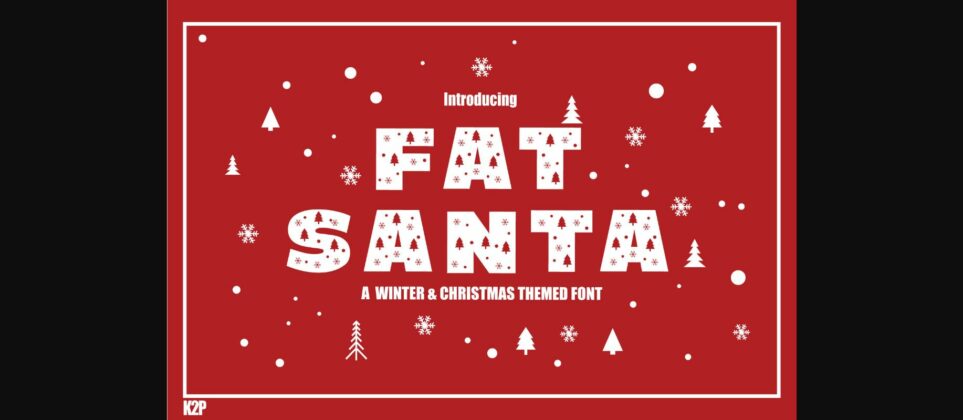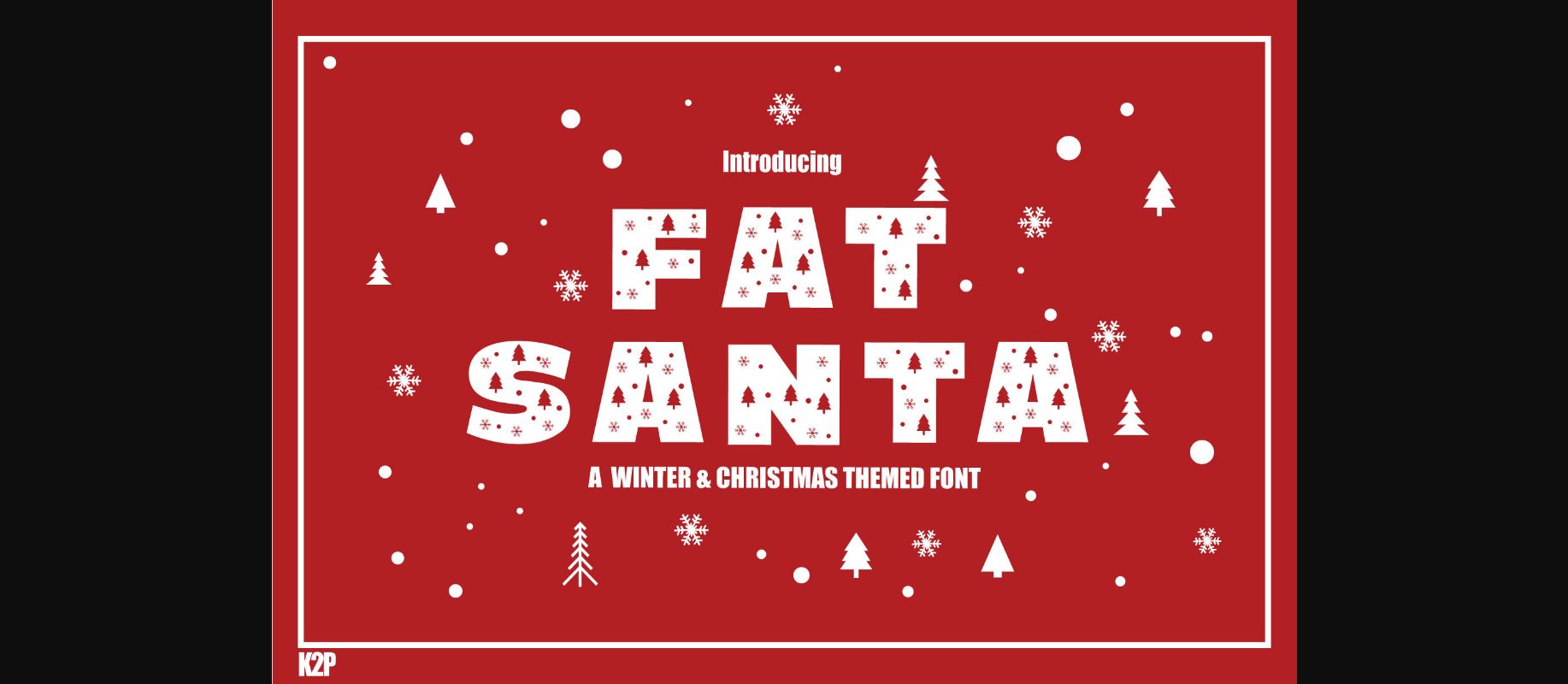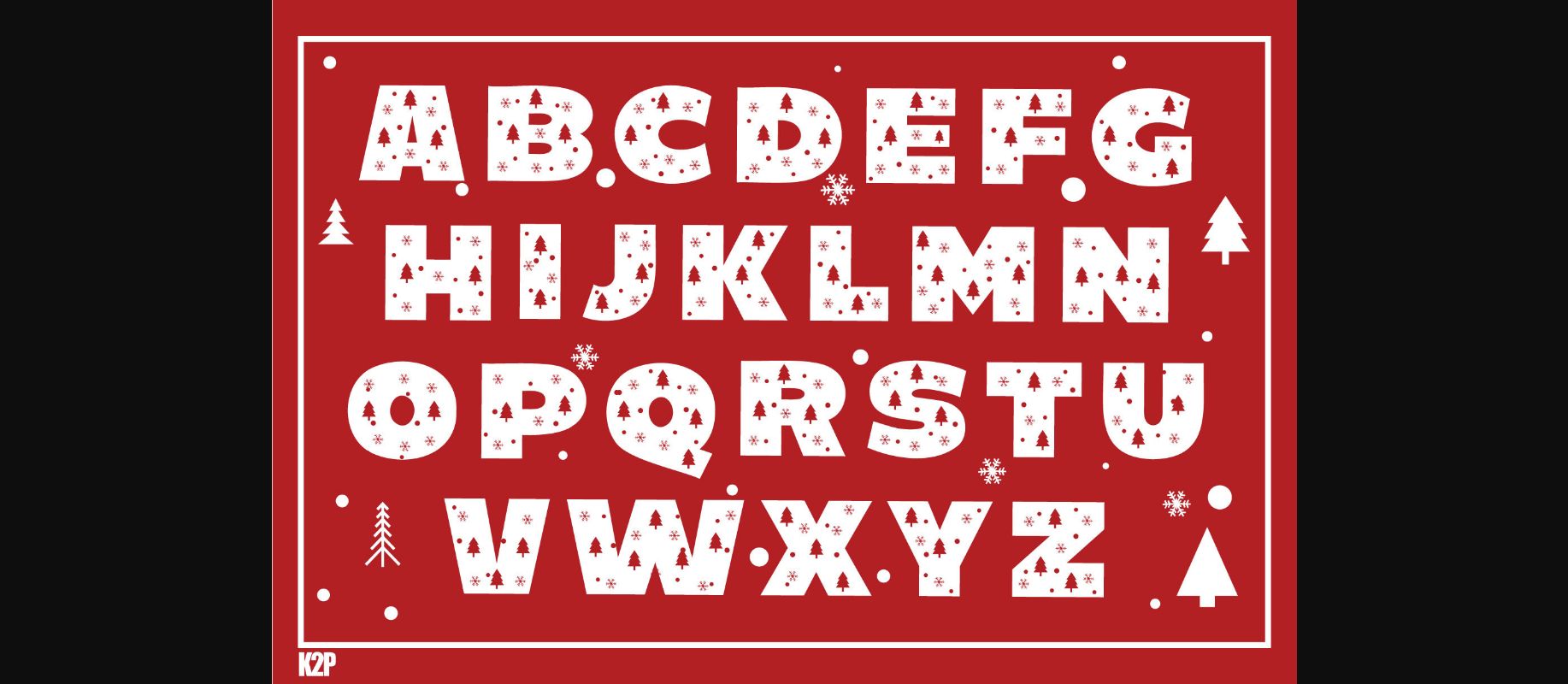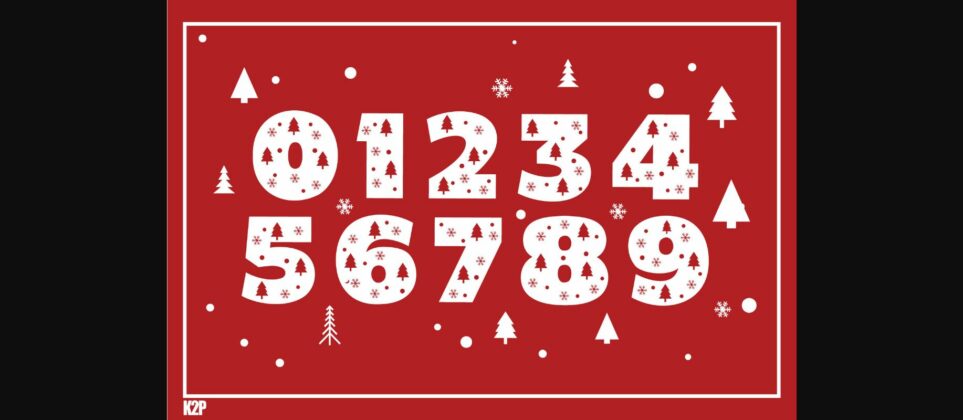
About Fat Santa Font
Fat Santa is a thick-lettered and incredibly unique decorative font. It can be used for various design ideas, particularly those related to the Christmas Holiday! Use it for your next creative projects, and you’ll be impressed with the results!